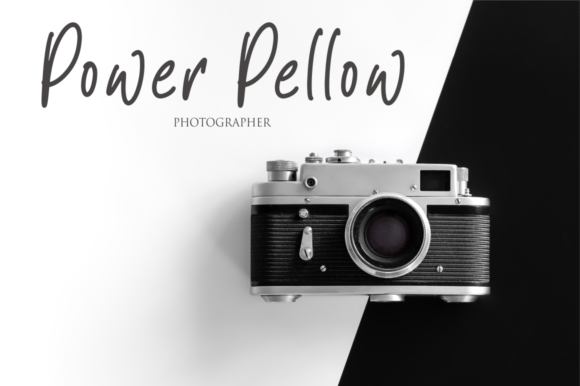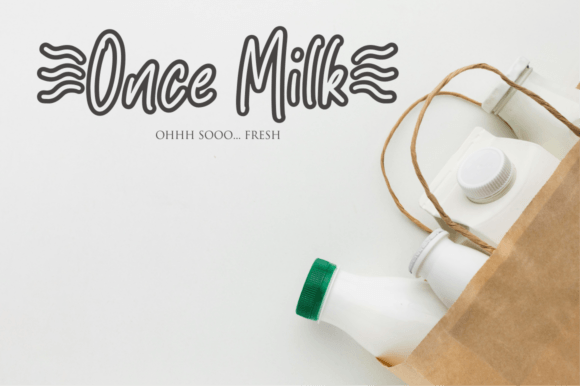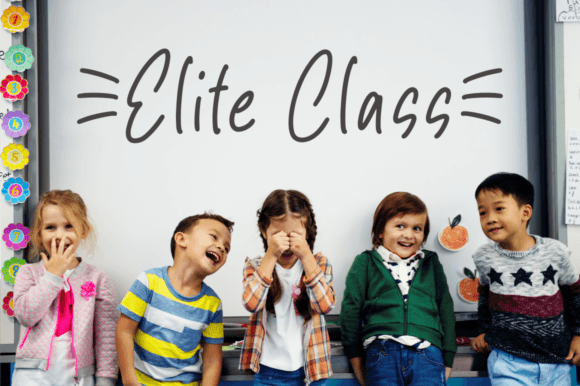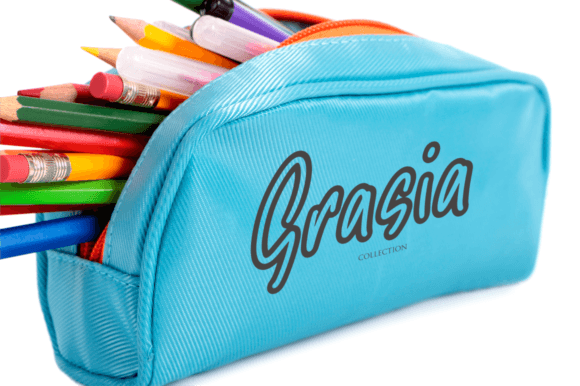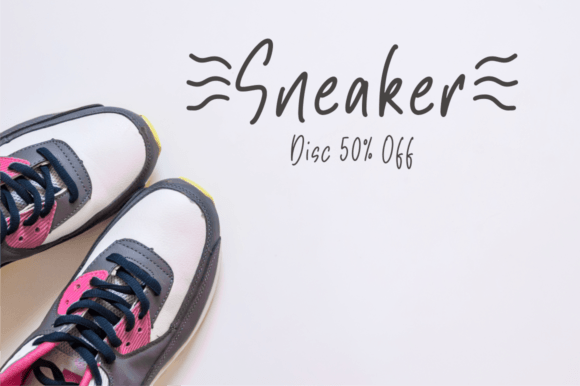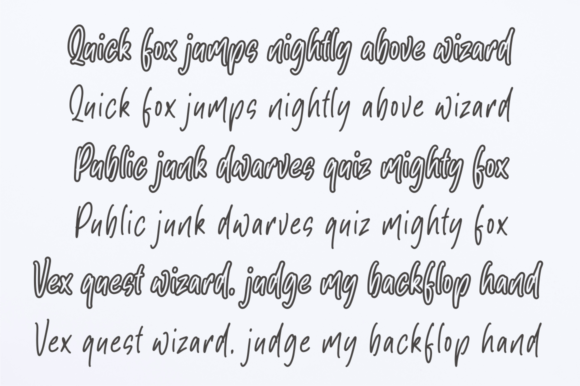
Back to School Font: Elevate Your Designs with a Simple Handwritten Style
As the new school year approaches, designers and crafters are on the lookout for fresh and exciting fonts to elevate their projects. If you’re searching for a font that’s both fun and versatile, look no further than the Back to School Font. This delightful handwritten font is perfect for a wide range of applications, from digital designs to print materials.
What Makes Back to School Font Special?
The Back to School Font is a simple yet charming handwritten font that features fun characters to take your projects to the next level. With its PUA code, you can easily access all the glyphs, making it a breeze to use. The font boasts many special features, including glyphs and font designs that are specifically made for various vector designs, printing, and digital applications.
Perfect for Digital Designs
Whether you’re creating digital wedding blogs, online shops, or social media graphics, the Back to School Font is an excellent choice. Its clean and simple design makes it easy to read and visually appealing. You can use it to create eye-catching headings, titles, and captions that will make your digital designs stand out.
Ideal for Printing
The Back to School Font is not just limited to digital designs; it’s also perfect for printing applications. You can use it for product clothing, accessories, bags, pins, logos, business cards, watermarks, and many others. The font’s simplicity and charm make it suitable for a wide range of print materials, from flyers and brochures to posters and banners.
Key Features of Back to School Font
- Simple handwritten font with fun characters
- PUA code for easy access to glyphs
- Special features, including glyphs and font designs
- Perfect for digital designs, such as wedding blogs, online shops, and social media
- Ideal for printing applications, including product clothing, accessories, and business cards
- Clean and simple design makes it easy to read and visually appealing
Why Designers and Crafters Love Back to School Font
Designers and crafters love the Back to School Font for its versatility and charm. It’s a font that can be used in a wide range of projects, from creative crafts to commercial designs. The font’s simplicity and fun characters make it perfect for creating unique and eye-catching designs that will stand out from the crowd.
Tips for Using Back to School Font
Here are some tips for using the Back to School Font in your designs:
- Use it for headings and titles to add a touch of personality to your designs
- Pair it with other fonts to create a unique and visually appealing combination
- Use it for printing applications, such as business cards and flyers, to create a professional and cohesive look
The Back to School Font is a simple yet charming handwritten font that’s perfect for designers and crafters looking for a fresh and exciting font to elevate their projects. With its PUA code, special features, and versatility, it’s an excellent choice for a wide range of applications, from digital designs to print materials. Whether you’re creating digital wedding blogs, online shops, or social media graphics, or printing applications such as product clothing and business cards, the Back to School Font is sure to take your designs to the next level.